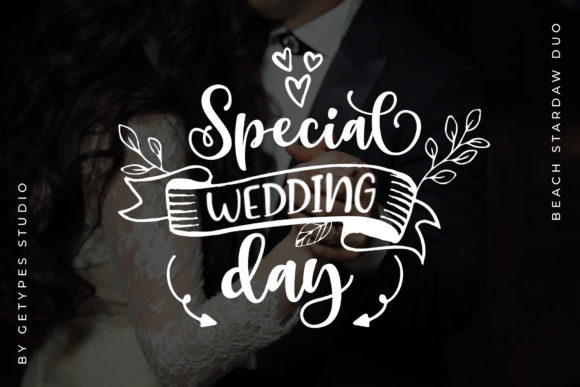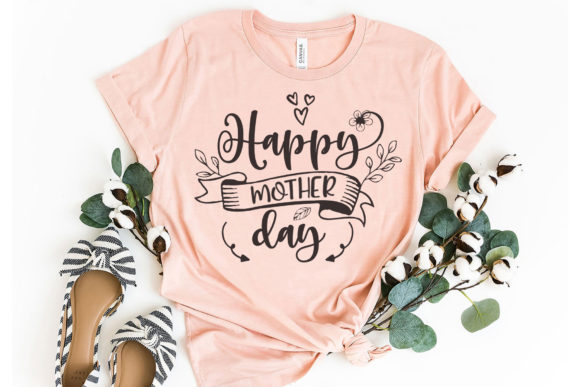
Beach Stardaw Duo Font
db-ku.com - Script & Handwritten -- Beach Stardaw Duo consists of two fonts designed to complement each other perfectly. Together or apart, these fonts are ideal for adding a chic and cheery touch to your crafts. This font is PUA encoded which means you can access all glyphs and swashes with ease!